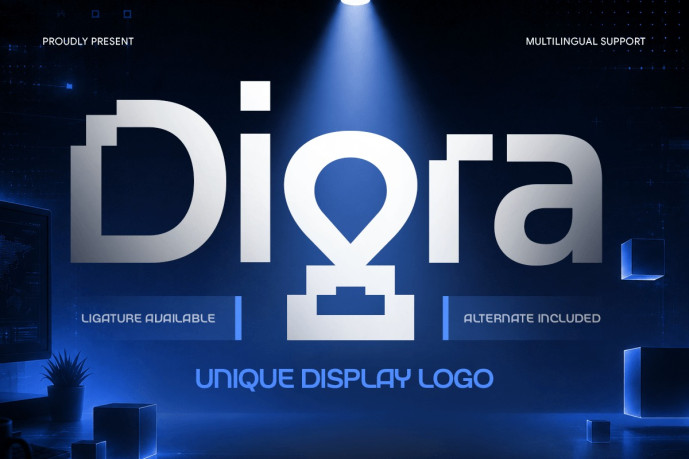
Digra – Unique Display Logo Font
Digra is a unique display logo font designed to deliver bold personality, creativity, and modern visual impact. Featuring distinctive letterforms, clean geometric details, and a contemporary display style, Digra is perfect for logos, branding, headlines, posters, packaging, and standout creative projects.
Blending expressive display typography with a modern branding approach, Digra creates a memorable and eye-catching visual identity. Its strong structure ensures excellent readability while maintaining a unique and recognizable character, making it ideal for creative studios, entertainment brands, startups, lifestyle businesses, and premium visual communication.
Digra – Unique Display Logo Font Features:
Unique display style with modern branding aesthetics
Distinctive letterforms with bold visual character
Ideal for logos, branding, headlines, posters, and packaging
Uppercase, lowercase, numerals, and punctuation included
Excellent readability with impactful display presence
Perfect for agencies, startups, entertainment, and creative projects
Make every design unforgettable with Digra – the unique display logo font crafted for bold and modern branding.